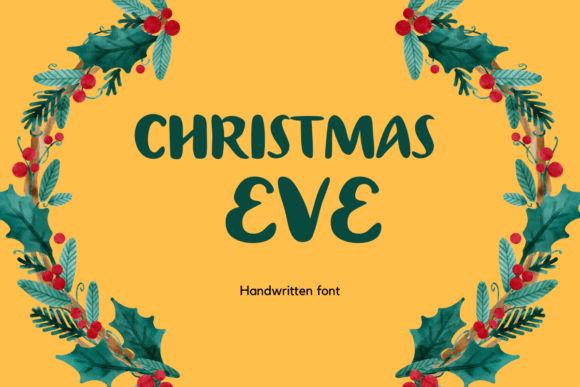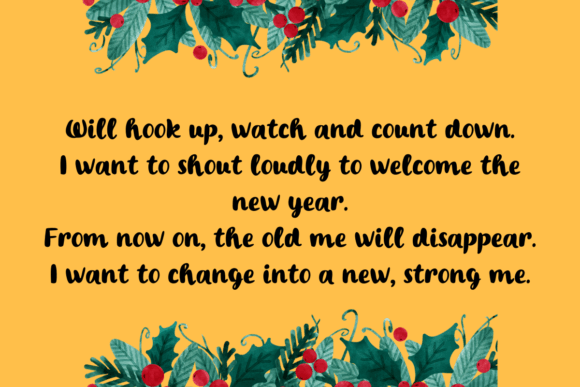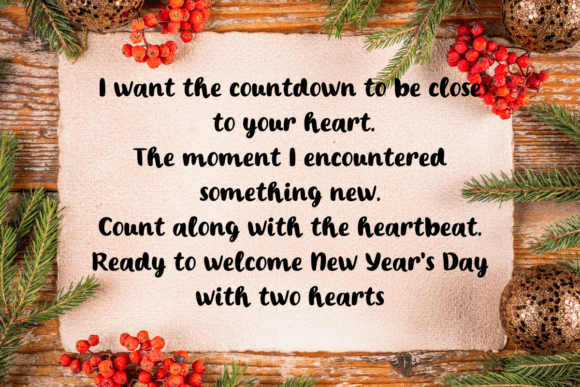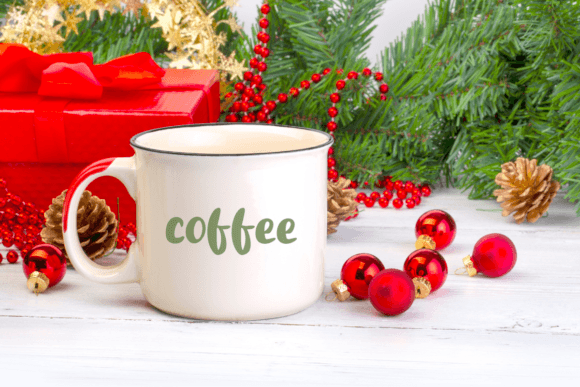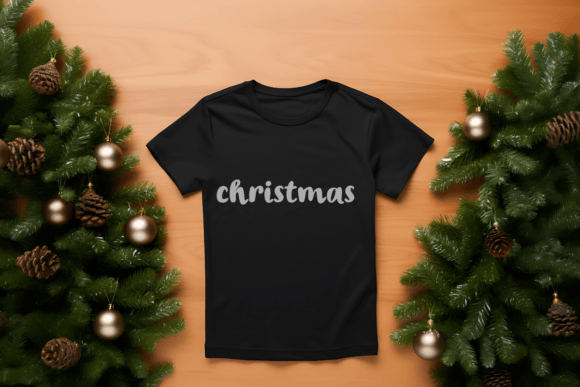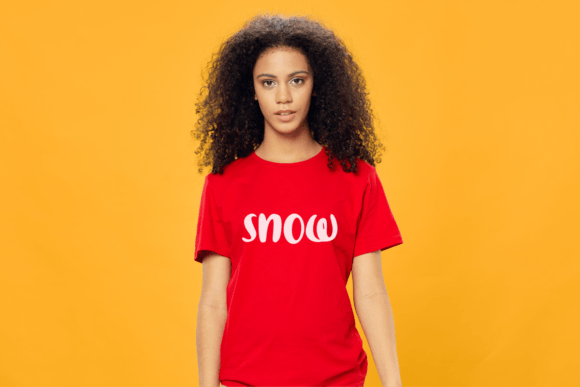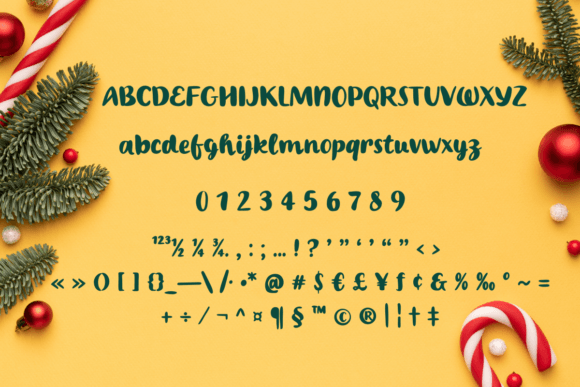
Deck the Halls with Typography: Discover the Magic of Christmas Eve Font
As you sit by the fireplace, surrounded by twinkling lights and the soft glow of the Christmas tree, do you ever find yourself lost in a world of festive creativity? The scent of pine and sugar cookies wafts through the air, and your imagination runs wild with ideas for the perfect holiday project. For designers, Christmas is a time to get crafty and bring joy to loved ones through thoughtful gifts and decorations.
That’s where the Christmas Eve Font comes in – a delightful, quirky font that captures the essence of the holiday season. With its charming decorative elements and flair, this font adds a touch of magic to any design. Suitable for greeting cards, T-shirt designs, mugs, crafts, gift tags, and holiday-themed projects, the Christmas Eve Font brings a cheerful and nostalgic atmosphere to your words.
Key Features of Christmas Eve Font
- Unique Characteristics: The font features a festive and elegant design, with intricate details and ornaments, making it perfect for holiday-themed designs, such as Christmas cards, invitations, and decorations.
- Font Dimensions: The font has a medium x-height, making it suitable for body text and titles, while the large x-height of the uppercase letters makes it ideal for headings and titles.
- Kerning and Ligatures: The font includes advanced kerning and ligature features, ensuring smooth and professional typography, even in complex layouts and compositions.
Christmas Eve Font Review
As a designer, I was excited to dive into the “Christmas Eve Font” and see what it had to offer. ✨ The first thing I noticed was its festive and playful vibe, perfect for holiday-themed projects. The font’s eclectic mix of traditional and modern elements creates a unique and eye-catching look.
The font includes a range of characters, including letters, numbers, and punctuation, making it a great option for titles, headings, and body text. The creator has also included a range of ornaments and decorations that can be used to add an extra touch of holiday cheer to your design.
- Unique and festive vibe
- Eclectic mix of traditional and modern elements
- Range of characters, including ornaments and decorations
- May not be suitable for formal or professional projects
- Some characters may be difficult to read at small sizes
- Limited language support (only includes Latin characters)
Overall, I think the “Christmas Eve Font” is a great option for holiday-themed projects or design projects that need a festive touch. While it may not be suitable for all types of projects, its unique and playful vibe makes it a great choice for designers looking to add some holiday cheer to their work.
Christmas Eve Font: A Practical Application Guide
Use the Christmas Eve font to add a festive touch to your designs, especially around the holiday season.
- Christmas card designs
- Holiday party invitations
- Seasonal social media graphics
- Winter-themed posters
Alternatives to Christmas Eve Font for Designers
Cream Soda Font is a beautiful, elegant script font perfect for adding a touch of sophistication to your designs. It’s ideal for creating invitations, greeting cards, and other special occasion materials. Compared to Christmas Eve Font, Cream Soda Font has a more refined and luxurious feel, making it suitable for high-end branding and advertising.
Great Vibes Font is a modern, cursive font that exudes a sense of fun and playfulness. It’s perfect for creating eye-catching headlines, social media graphics, and other promotional materials. Unlike Christmas Eve Font, Great Vibes Font has a more energetic and dynamic feel, making it ideal for young audiences and trendy brands.